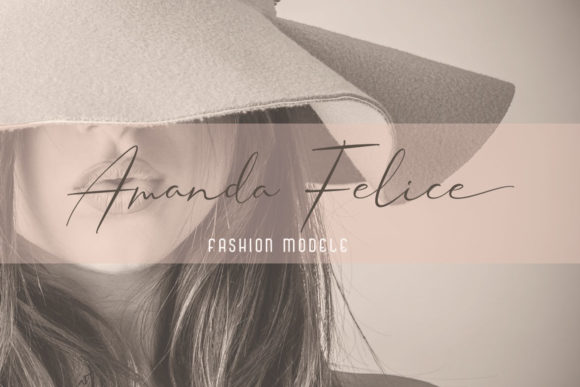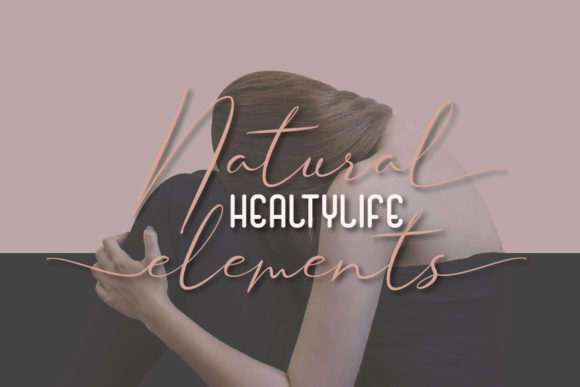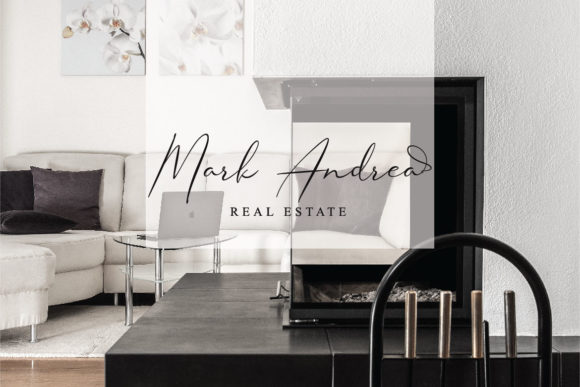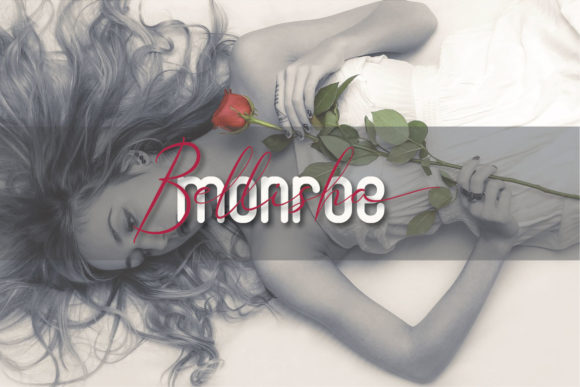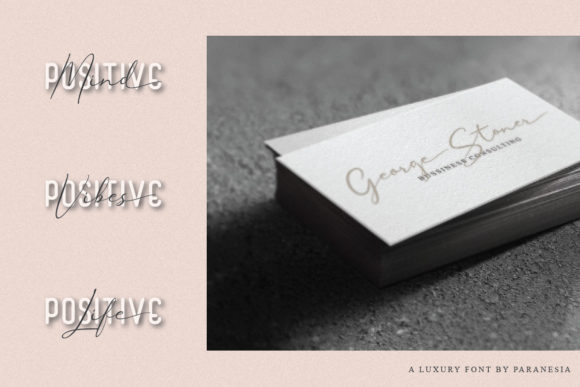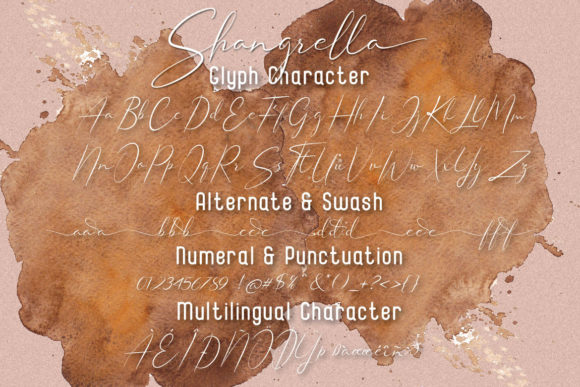
Introduction to Magnum Shangrella Duo Font
The moment you’re staring at a blank canvas, waiting for inspiration to strike, and then suddenly – it hits you. A beautiful, high-quality design starts to take shape in your mind. This is the magic of creating something truly unique, and the right design resource can make all the difference. For designers, finding the perfect font can be the key to unlocking a stunning visual identity. That’s where the Magnum Shangrella Duo Font comes in – a game-changing, modern font duo that combines the elegance of modern calligraphy with the clean lines of modern sans serif.
Key Features of Magnum Shangrella Duo Font
- High-quality design with a unique, creative flair, making it perfect for various projects.
- Includes two font styles: a bold and a regular, providing versatility for different design needs.
- Transparent background, making it ideal for use in graphics, logos, and other design elements.
Honest Review: Magnum Shangrella Duo Font
As a designer, I’m always on the lookout for high-quality design resources that can elevate my creative projects. Recently, I had the chance to try out the Magnum Shangrella Duo Font, and I must say, it’s been a game-changer for me.
What works well: ✨ The Magnum Shangrella Duo Font is incredibly versatile, making it perfect for a wide range of creative projects. Its clean and modern design aesthetic is sure to impress, and the transparent background makes it easy to customize. I’ve used it for everything from logos to social media graphics, and it always looks amazing.
Here are some of my favorite features:
- High-quality design: The font is meticulously crafted, ensuring that it looks great on any device or screen.
- Easy to customize: The transparent background makes it easy to adjust the font to fit your design needs.
Limitations: ⚠️ While the Magnum Shangrella Duo Font is incredibly versatile, it may not be suitable for projects that require a more bold or dramatic font style.
Overall, I’m thoroughly impressed with the Magnum Shangrella Duo Font. Its high-quality design and versatility make it an excellent addition to any designer’s toolkit. If you’re looking for a reliable and stylish font, I highly recommend giving it a try.
Getting the Most Out of Magnum Shangrella Duo Font
To get the most out of the Magnum Shangrella Duo Font, use it in creative projects that require a unique and stylish design element. This font is perfect for designing logos, brochures, business cards, and other marketing materials.
The Magnum Shangrella Duo Font is commonly used in:
- Marketing materials and advertisements
Remember to always use high-quality fonts like the Magnum Shangrella Duo Font to elevate your design projects and make them stand out.
Can I use the Magnum Shangrella Duo Font for a specific creative project?
The Magnum Shangrella Duo Font is suitable for a wide range of creative projects, including logos, branding, and typography-based designs. Its high-quality design and transparent background make it an excellent choice for designers looking to add a unique touch to their work.